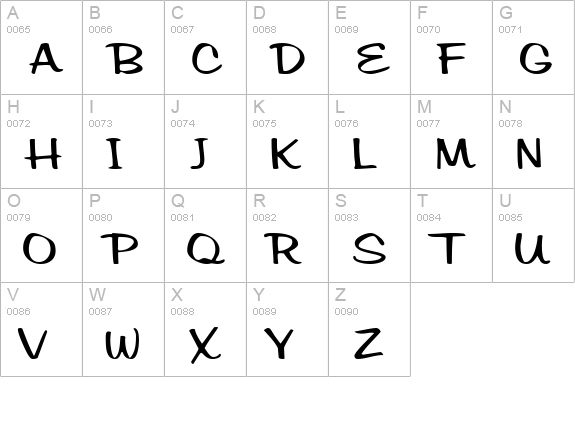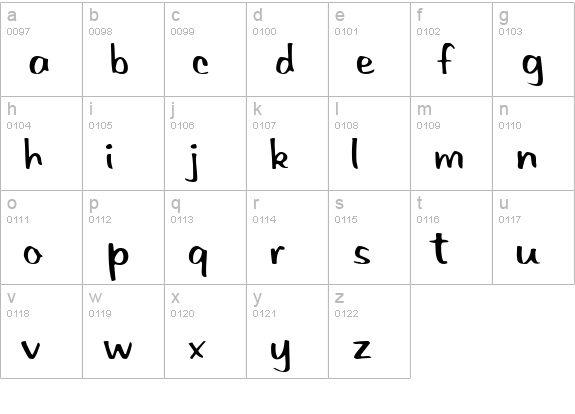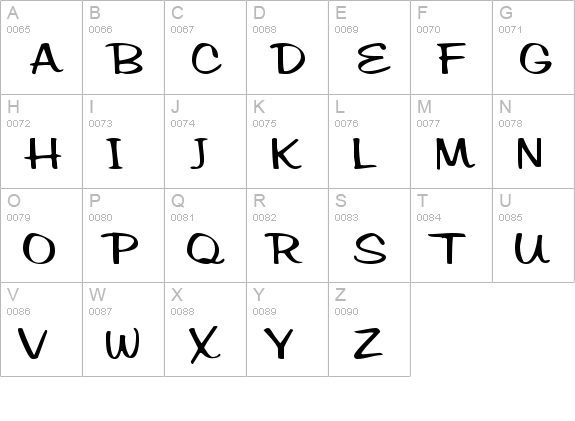
PrevattScriptSSK Font Details
PrevattScriptSSK is a delightful and elegant font that exudes sophistication and charm. This script font features flowing and graceful curves, making it perfect for adding a touch of personality to your designs. Whether you're working on invitations, branding, or any creative project, PrevattScriptSSK is sure to make a lasting impression. The best part is that PrevattScriptSSK is completely free to download at FontsMarket.com! Take advantage of this beautiful font to enhance your projects and bring your ideas to life with style and flair. Don't miss out on this opportunity to elevate your designs with the timeless beauty of PrevattScriptSSK. Download it now and let your creativity shine!